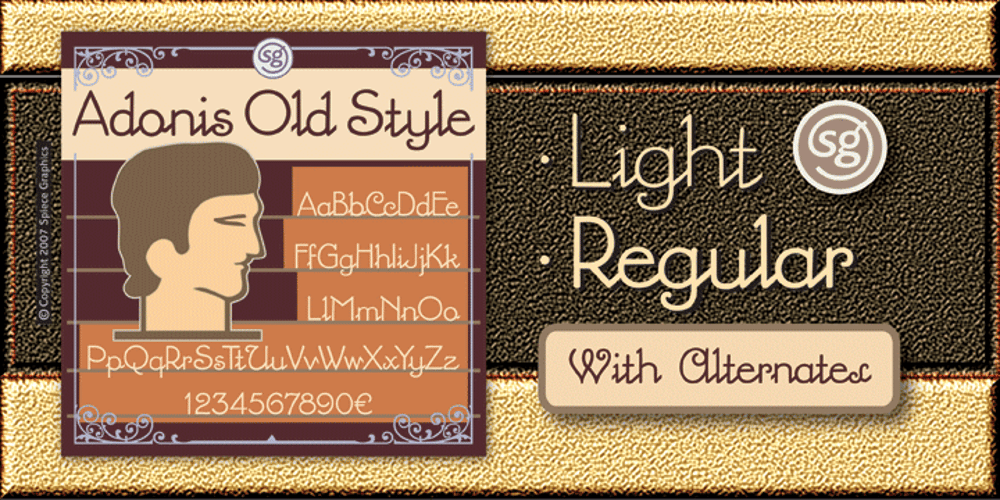
Adonis Old Style SG Font Family was designed by Willard T. Sniffin, Jim Spiece and published by Spiece Graphics. Adonis Old Style SG contains 2 styles and family package options. Willard T. Sniffin deserves the credit for this charming little stationery and greeting card typeface developed for American Type Founders in 1930. Capital letters show an occasional hint of ornamentation and lowercase letters are of the linking variety. The original set of exquisite alternate characters (A,B,G,T,V, W, o, s) has been included in this digital version. Adonis Old Style is ideal where a 1920s or 30s script-like lettering look is required. Adonis Old Style with Alternates is also available in the OpenType Std format. Some new characters have been added to this OpenType version. Advanced features currently work in Adobe Creative Suite InDesign, Creative Suite Illustrator, and Quark XPress 7. Check for OpenType advanced feature support in other applications as it gradually becomes available with upgrades.